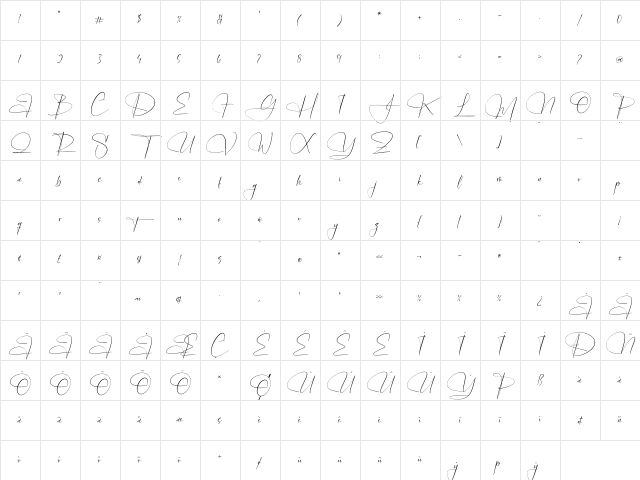
Molahesta Regular Free Font
Molahesta Regular
Foundry: Storytype Studio
Designer: Heru Utama Putra
Complete Molahesta Regular glyph index. Displaying only characters natively supported by Molahesta Regular font.
Design Context for Molahesta
Molahesta is a composed and adaptable typeface that performs quietly and consistently across a wide range of design contexts.
Pro Tip: Use Molahesta in both headline and body roles to test its range before committing to a single application.